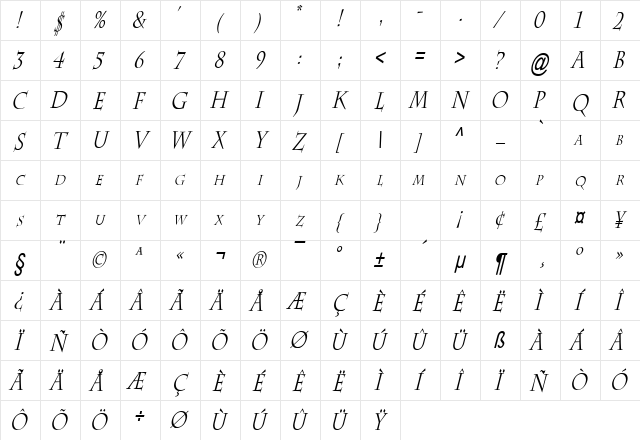
Chaz Thin Italic Free Font
Chaz Thin Italic
Chaz Thin Family
Design Context for Chaz Thin
Chaz Thin is a composed and adaptable typeface that performs quietly and consistently across a wide range of design contexts. The slanted form adds forward momentum and visual energy. Its slender proportions lend an understated elegance to any composition.
Pro Tip: Use Chaz Thin for emphasis, pull quotes, and subheadings where its slanted energy can add rhythm to the layout.